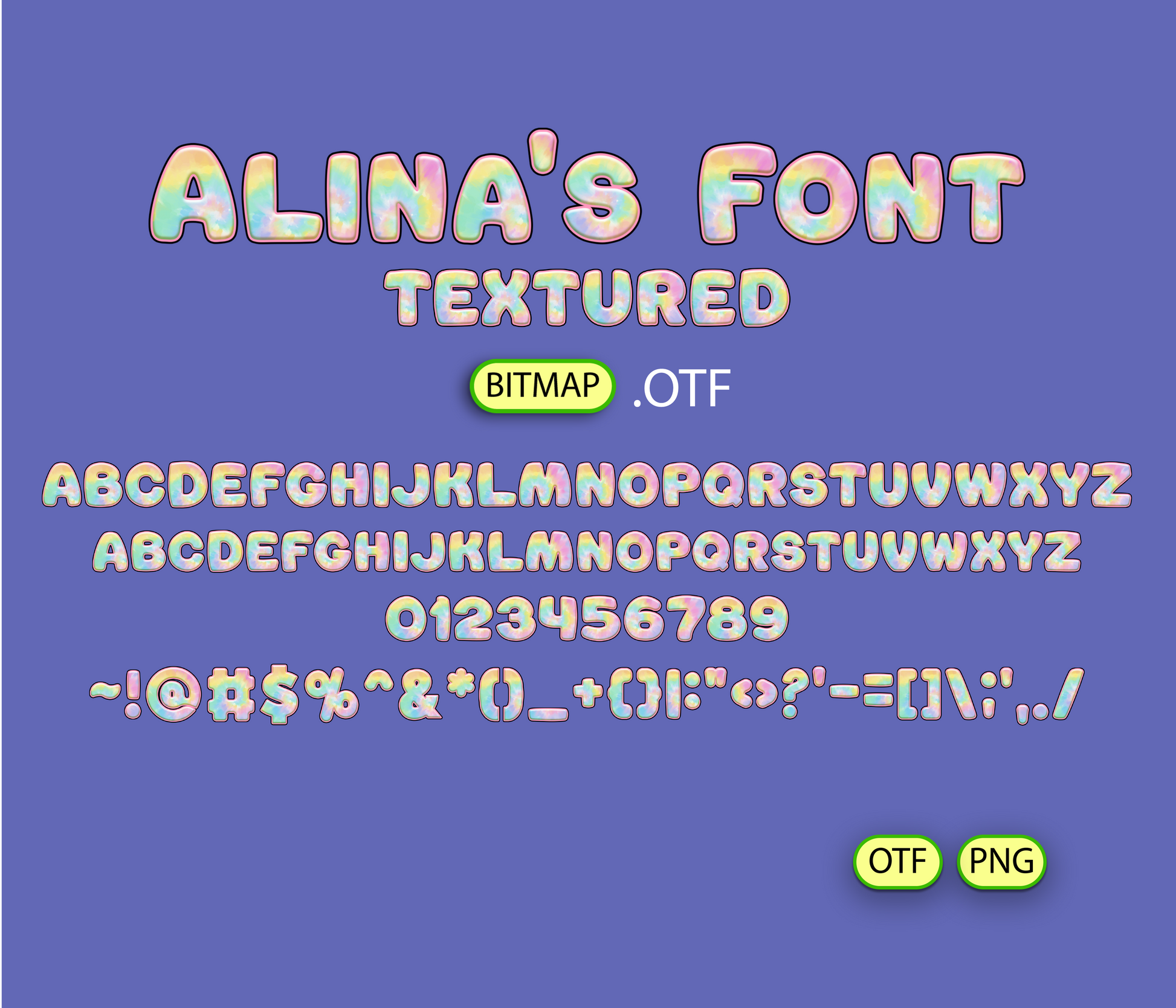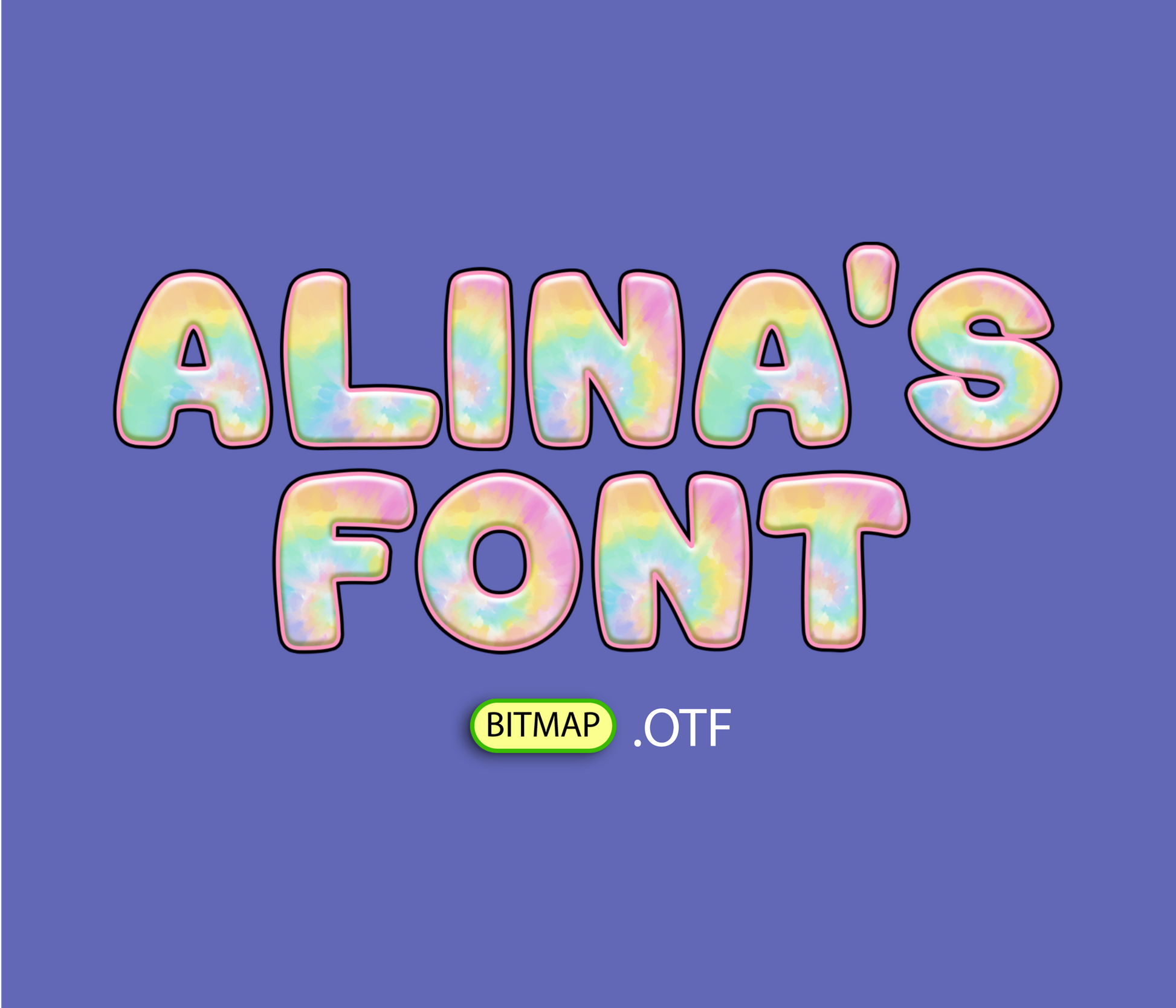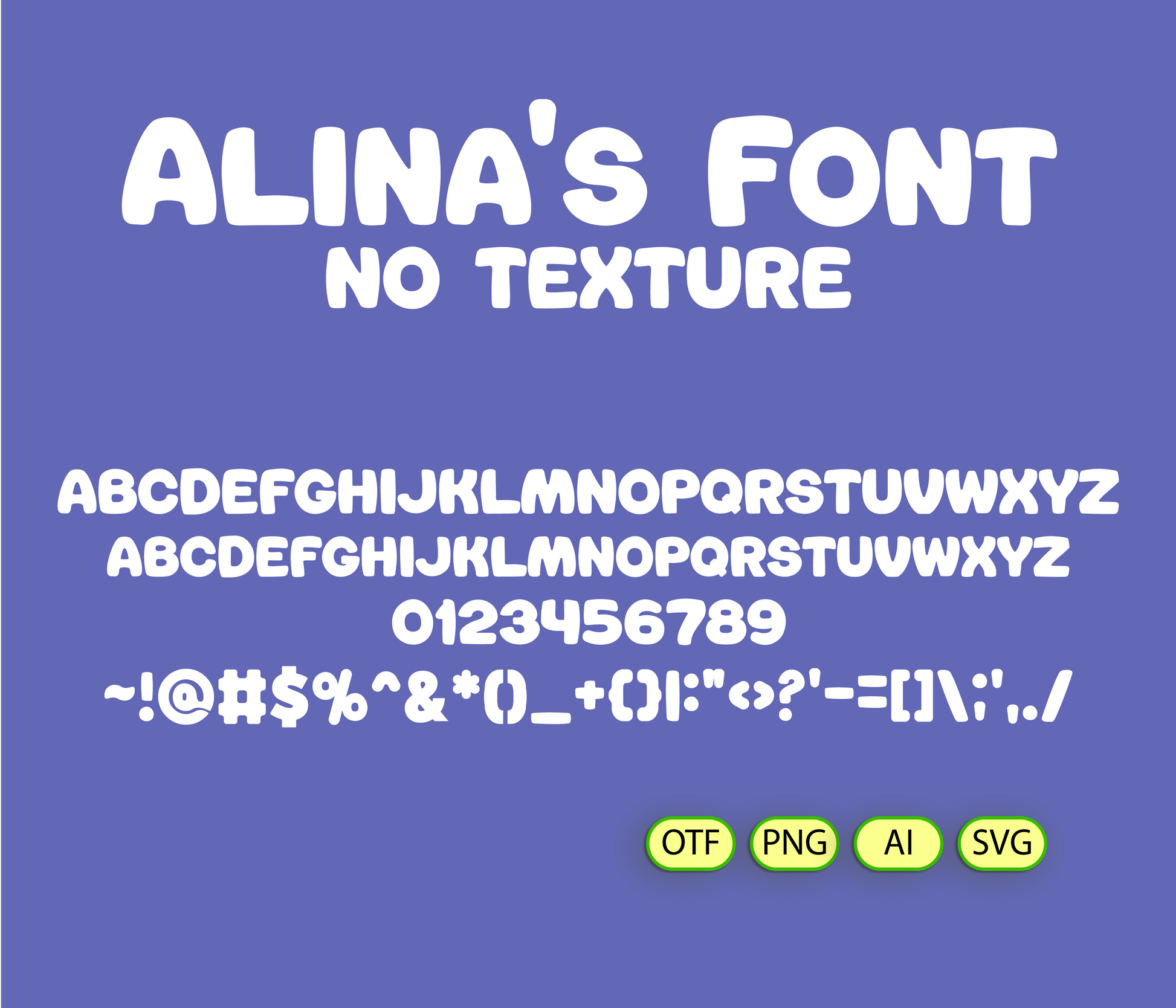
FREE Watercolor Artistic Expression Pattern Font
Watercolor Font Textured Artistic Expression
Step into the dreamy world of fluid artistry with our Watercolor font, capturing the essence of painted masterpieces and creative expression. Perfect for art studios, wedding designers, craft enthusiasts, and creative professionals, this font brings the soft, flowing spirit of watercolor paintings to your projects. Create stunning invitations, artistic merchandise, or digital content with the gentle, expressive energy of hand-painted artworks.
Our Watercolor font features flowing, organic shapes and soft characters reflecting the delicate yet vibrant aesthetic of watercolor paintings. Ideal for:
- Wedding Events: Create elegant invitations, save-the-dates, and signage for ceremonies, receptions, and romantic gatherings
- Artistic Design: Perfect for gallery promotions, art class materials, and creative workshop accessories that capture artistic fluidity
- Digital Media: Enhance websites, blogs, and social media with dreamy headers and graphics that express creativity and gentle beauty
- Craft Content: Add authentic character to scrapbooking materials, DIY projects, and promotional materials for artistic events
- Personal Projects: Bring artistic flair to home decor, greeting cards, and handmade crafts inspired by the aesthetics of watercolor painting